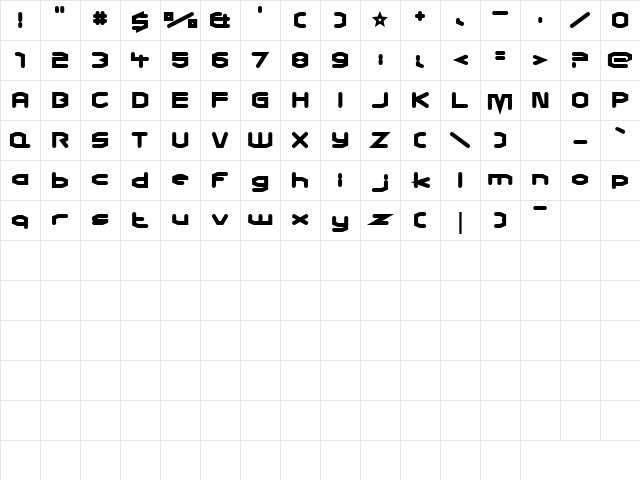
Charles in Charge Regular
Design Context for Charles in Charge
Charles in Charge is a composed and adaptable typeface that performs quietly and consistently across a wide range of design contexts.